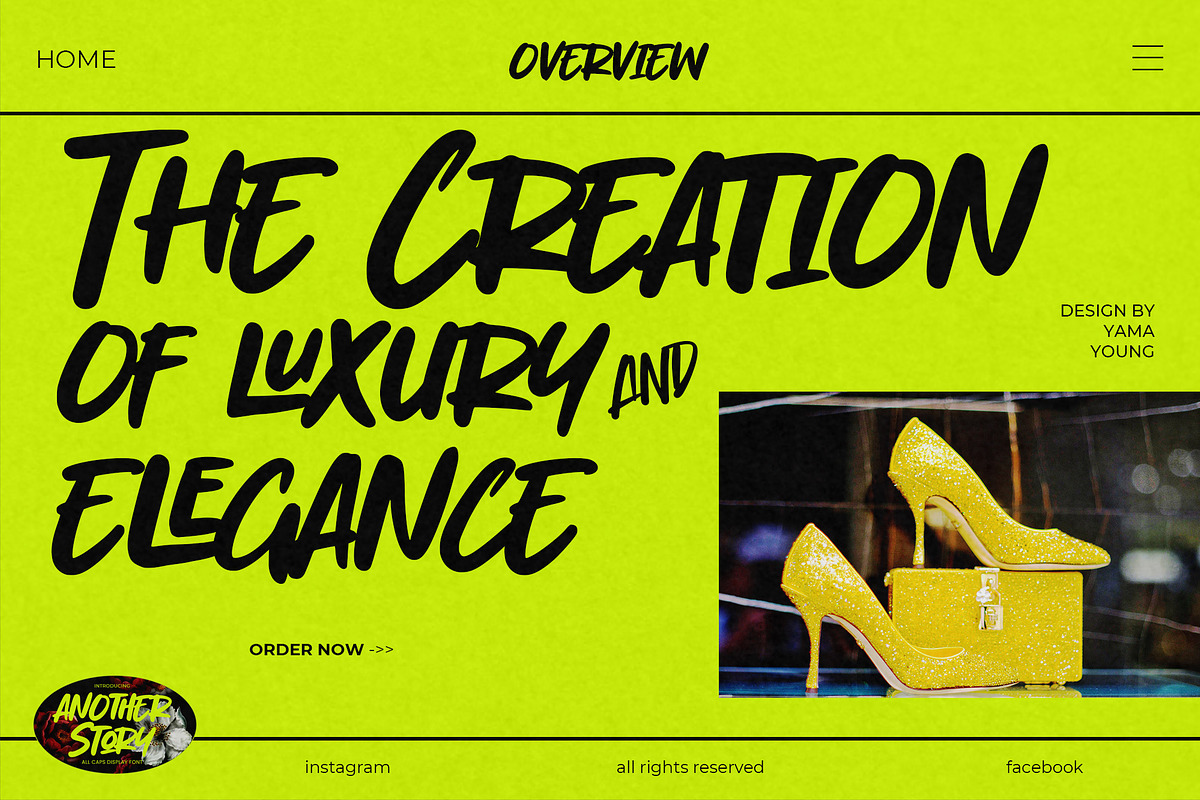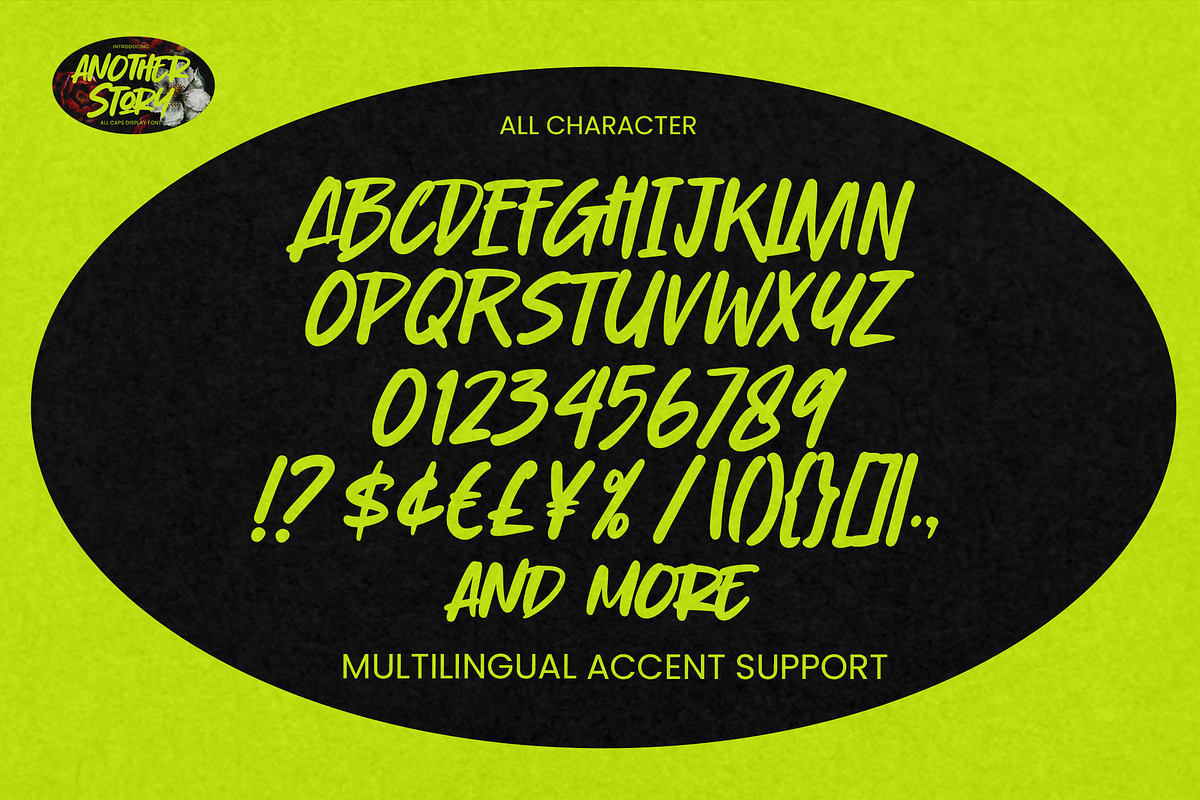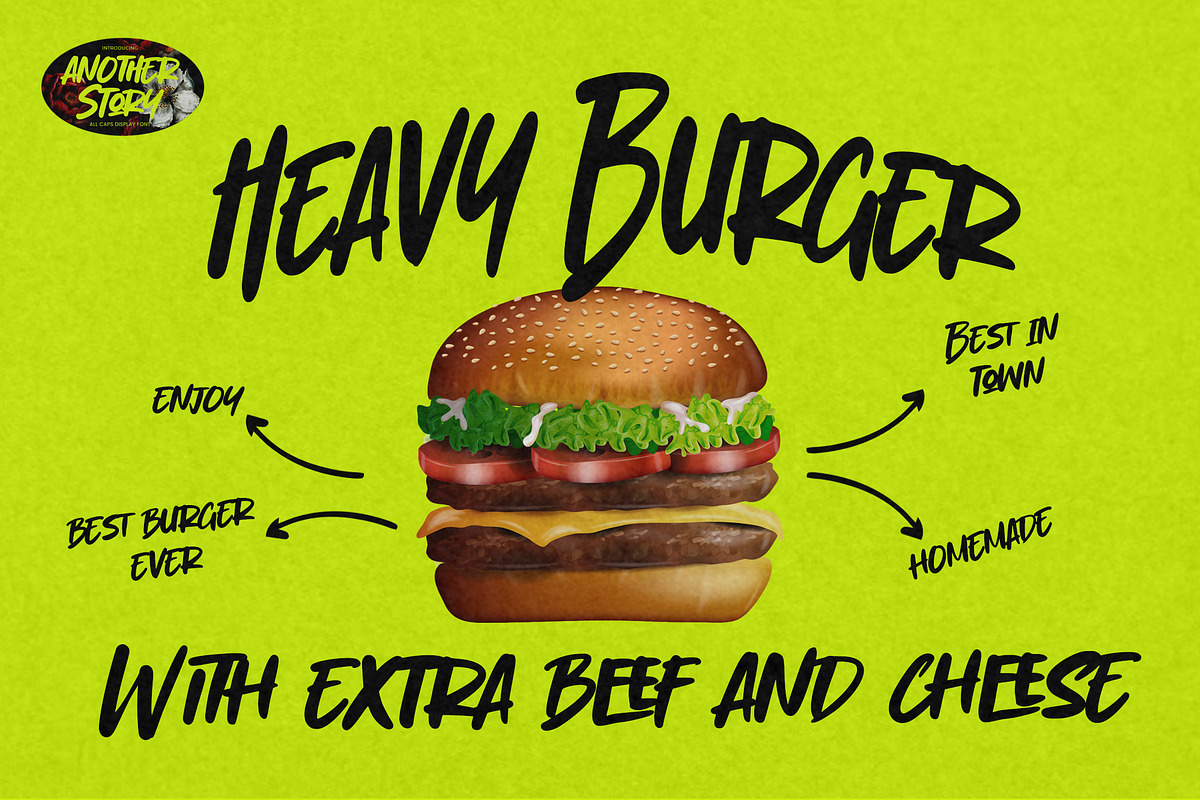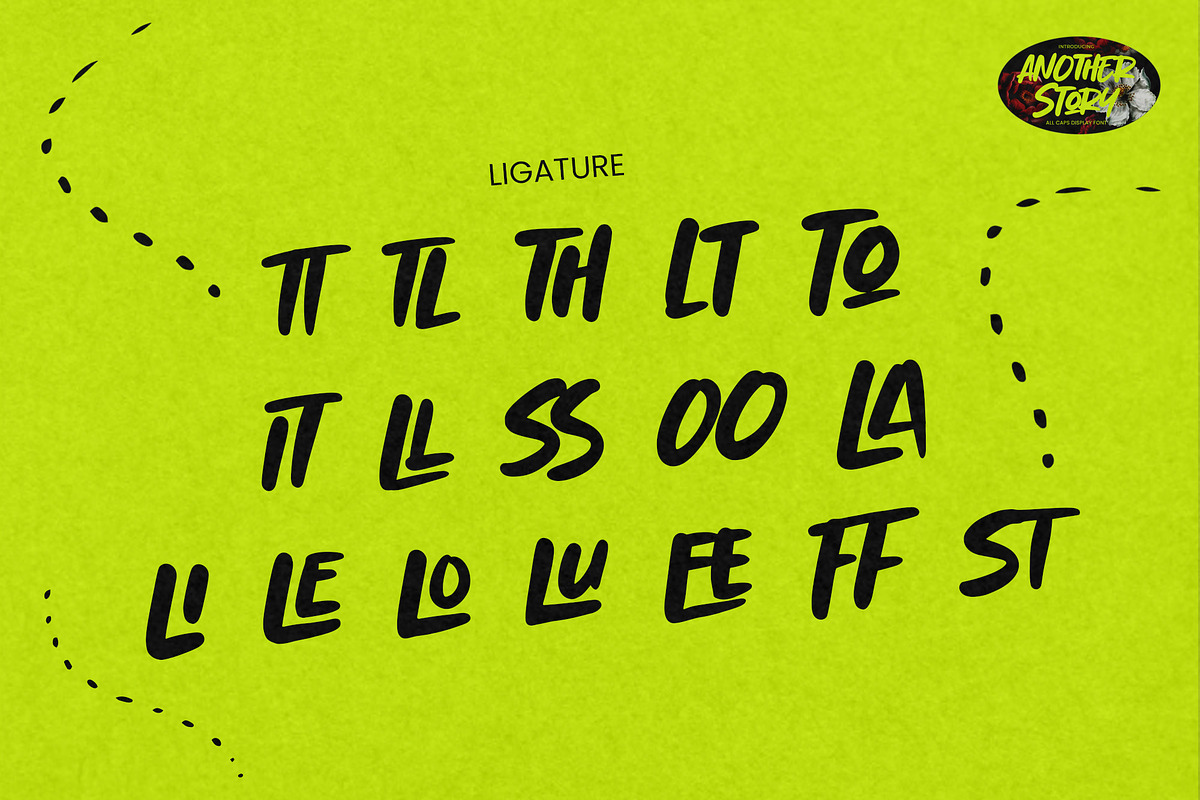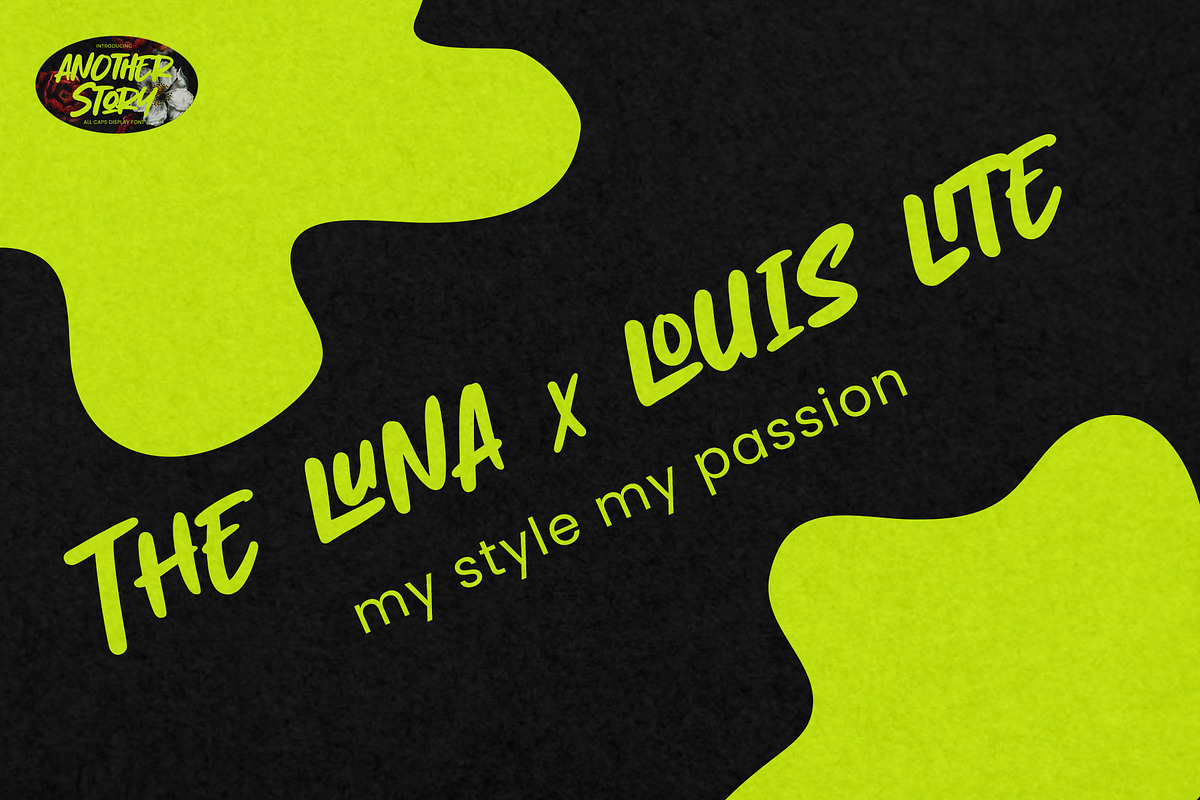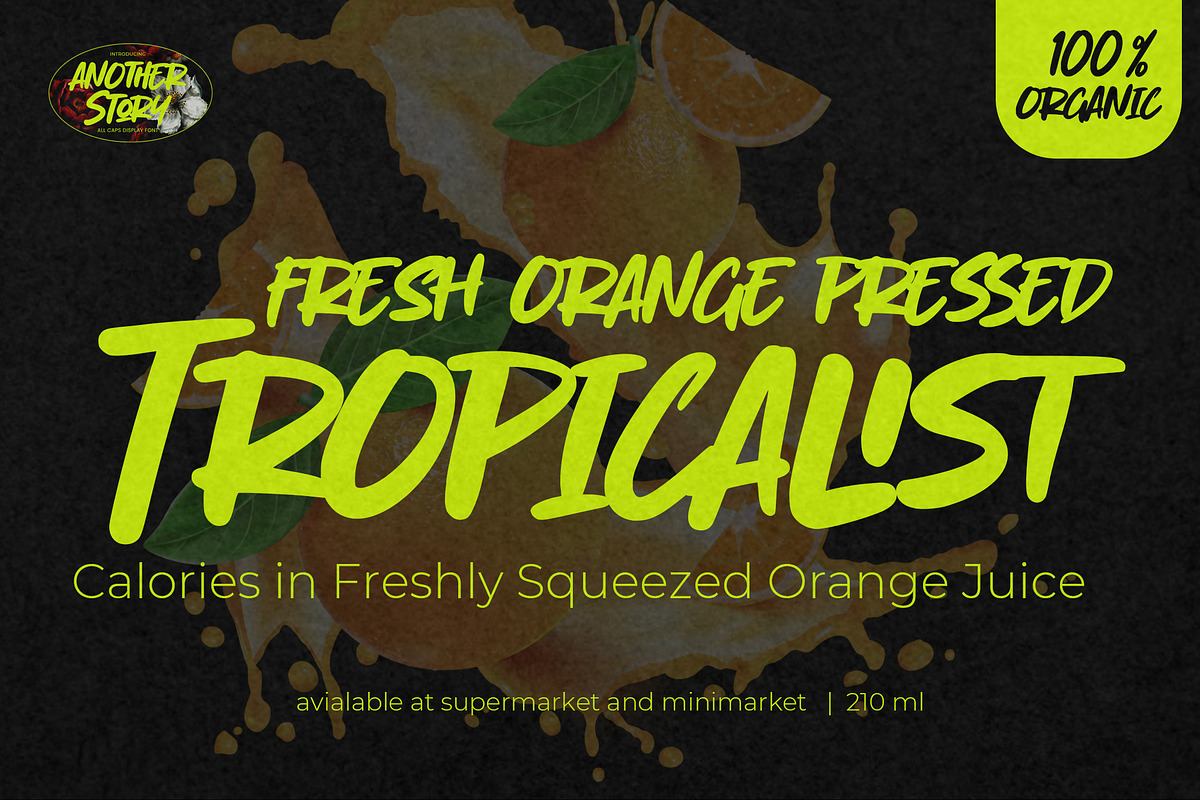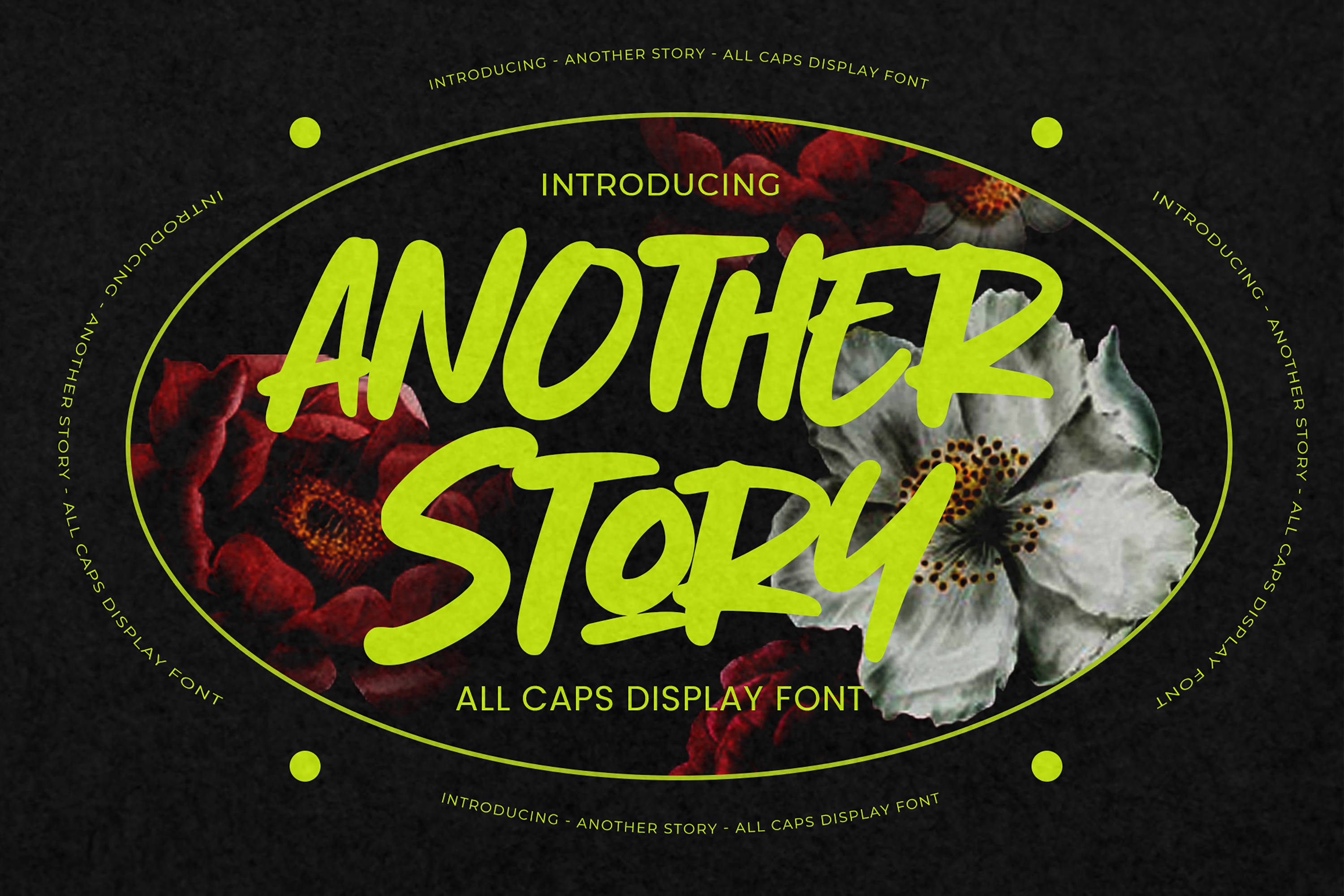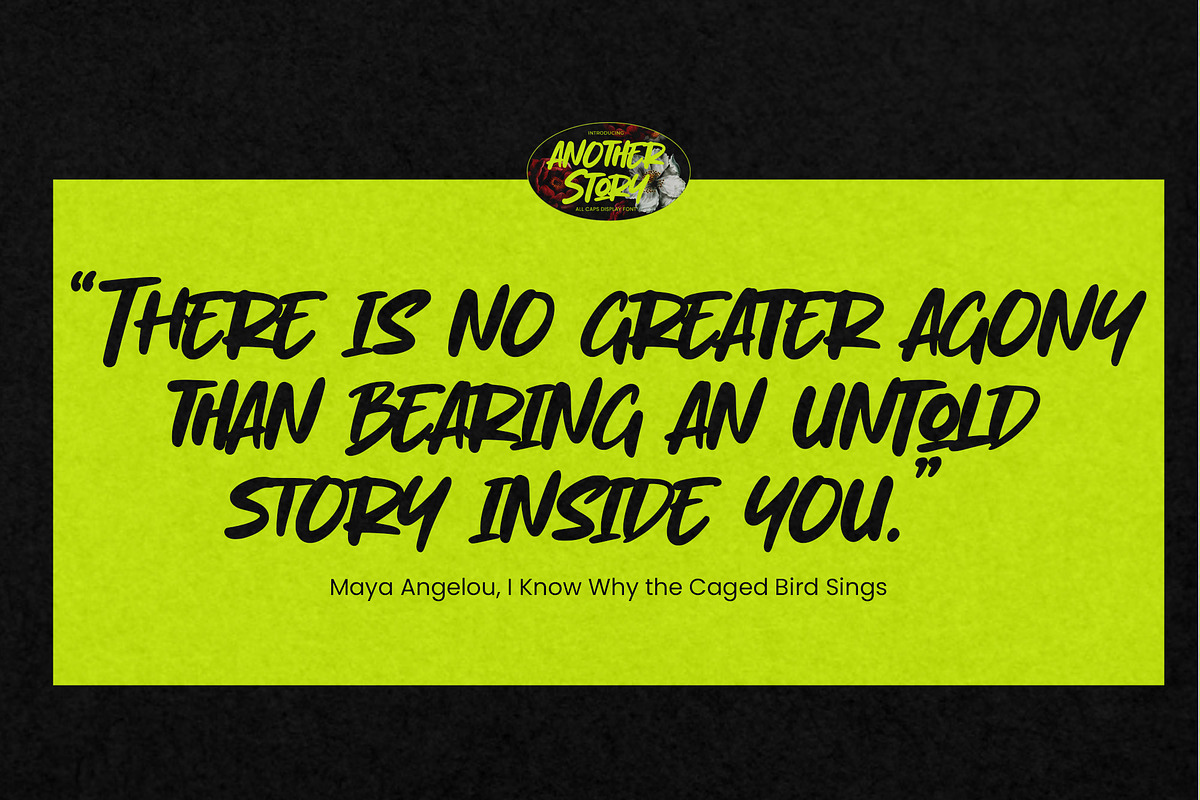
Another Story -All Caps Display Font
Introducing Another Story is All Caps Display Font Authentic that is written casually and quickly. Then scanned and carefully drawn into vector format. This handmade font will make your design has a beautiful natural touch for each details. It is perfect for any design project as Invitation,logo, book cover, craft or any design purposes. That is why Another Story has charming, authentic and relaxed characteristic more natural look to your text with a more natural look to your text. You can activate Ligature OpenType panel design more interesting. Another Story is perfect for homeware designs,branding projects, Logo design, Quotes product packaging.
- Ligatures Glyphs